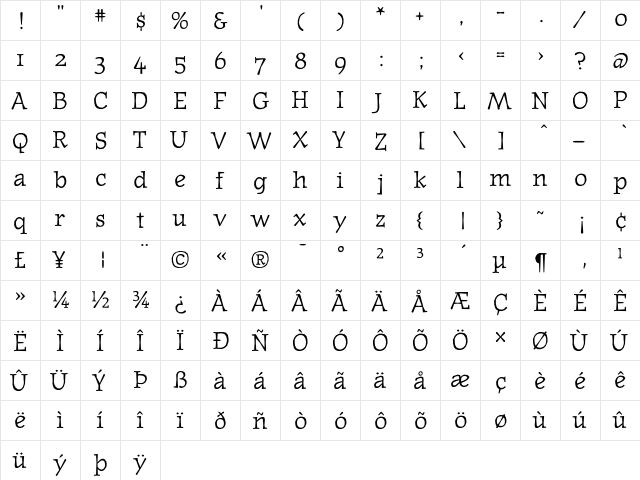
JournalTextOldstyle Regular
JournalTextOldstyle brings classic typographic sensibility to the table — its serifs and measured letterforms reflect centuries of print heritage.
Pro Tip: Set JournalTextOldstyle with slightly loose tracking in headlines to let each letterform's detail read clearly at display sizes.